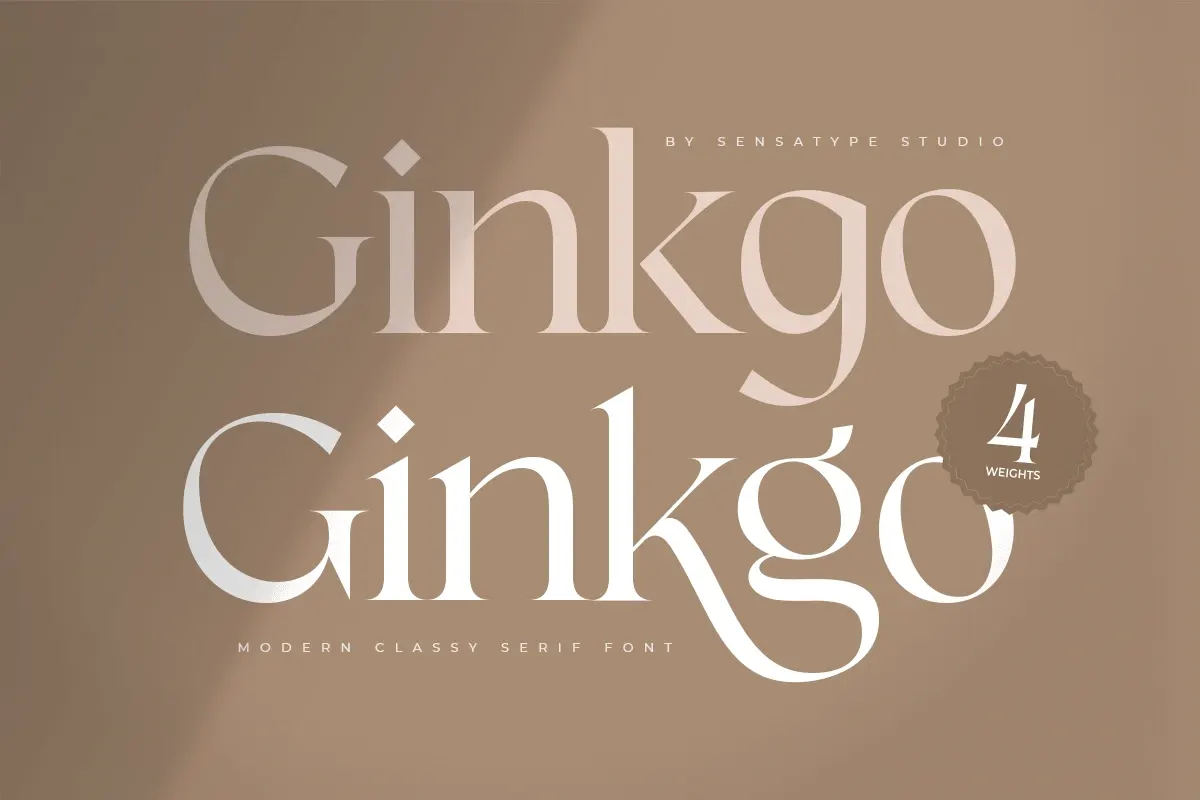
Ginkgo – Modern Classy Serif Font Free Download is a sophisticated typeface that blends timeless serif elegance with sleek, contemporary details. Please note: you must purchase this font for commercial use, but you can test it through a free download. With its sharp serifs, balanced curves, and high-contrast letterforms, Ginkgo is perfect for fashion branding, editorial layouts, wedding invitations, luxury packaging, and refined logo design.
This font brings a polished and upscale look to any project—ideal for creatives who want to make a stylish and lasting impression. Whether you're crafting a designer label or a modern magazine spread, Ginkgo – Modern Classy Serif Font Free Download delivers grace, readability, and professional appeal. Fully compatible with Adobe Illustrator, Photoshop, Canva, and more. Download it today for personal use and let your typography flourish with the sophisticated charm of Ginkgo.